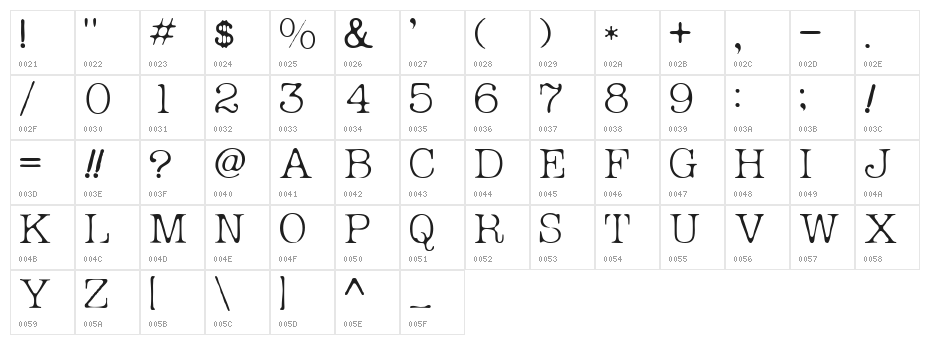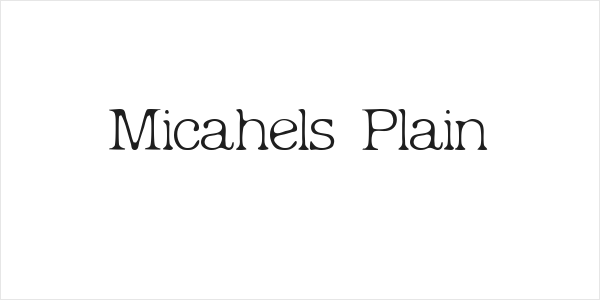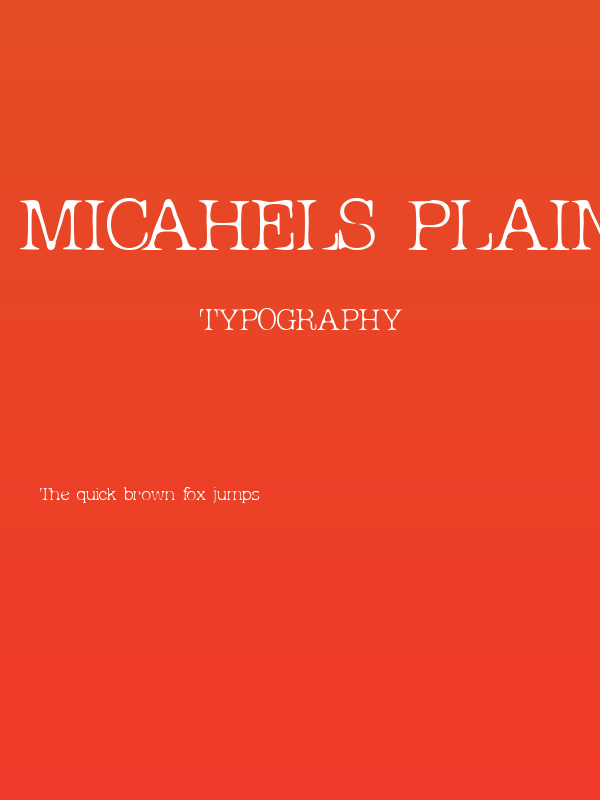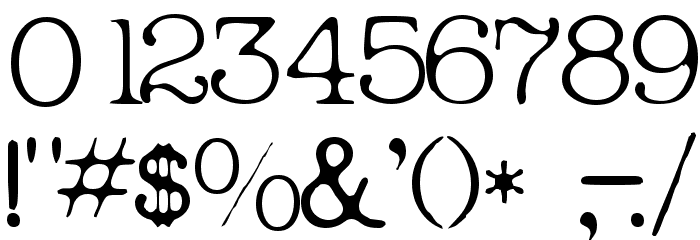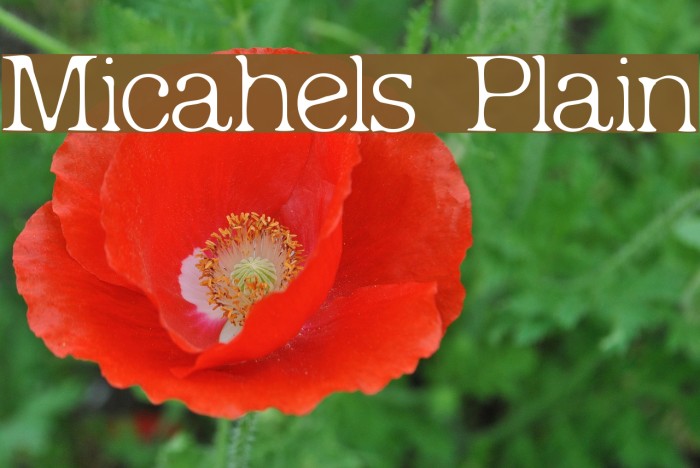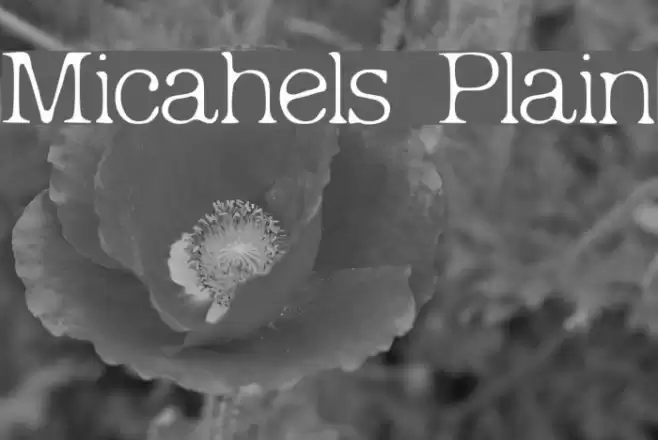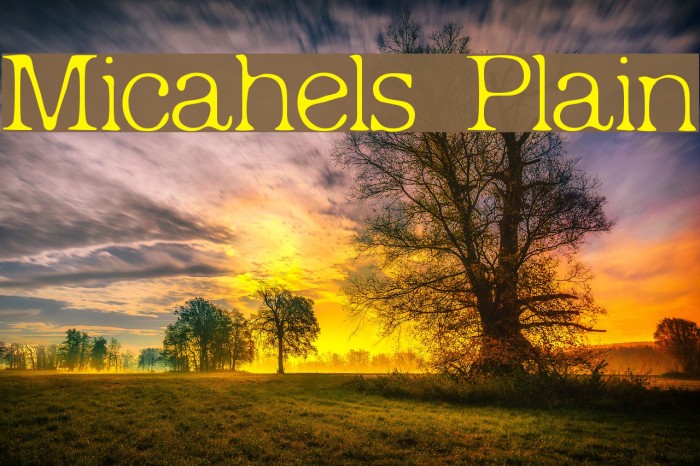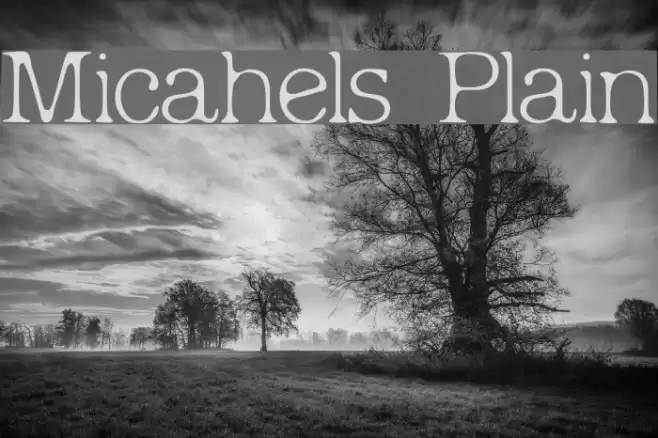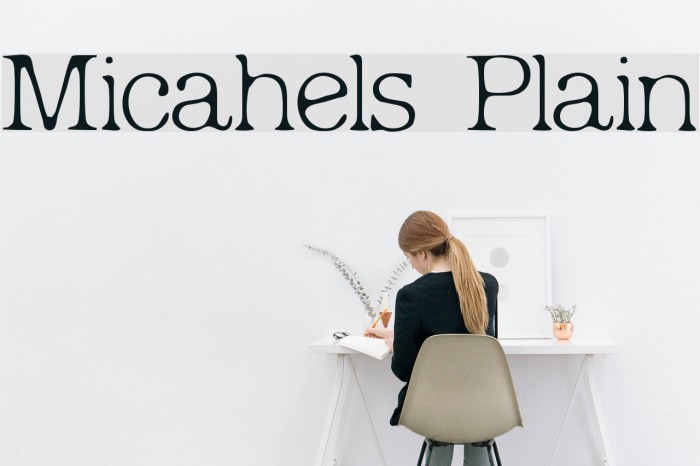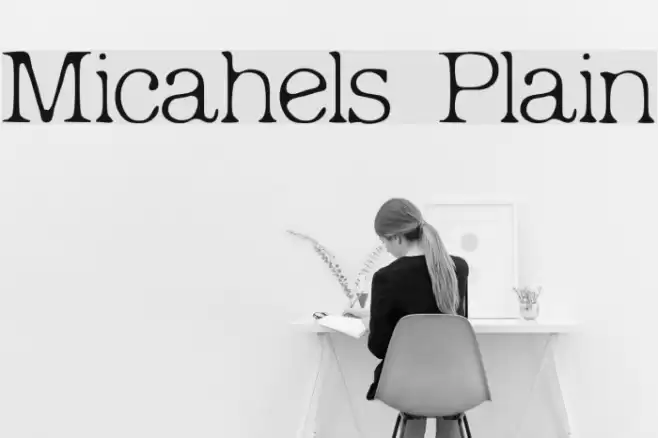
Micahels Plain Font
Micahels Plain Description
This font features a unique blend of classic and decorative elements, characterized by its distinct serifs and playful curves. The uppercase letters exhibit a bold presence with slightly exaggerated serifs, while the lowercase letters maintain a whimsical yet readable style. The numerals are consistent with the overall design, offering a balanced look that complements both text and numbers. Special characters are creatively designed, adding a touch of flair to the font's overall appearance. The font's style is versatile, making it suitable for various creative projects.
| Use Case | Logos, Headlines, Posters |
| Proposed Projects | Ideal for branding, invitations, posters, and creative design projects. |